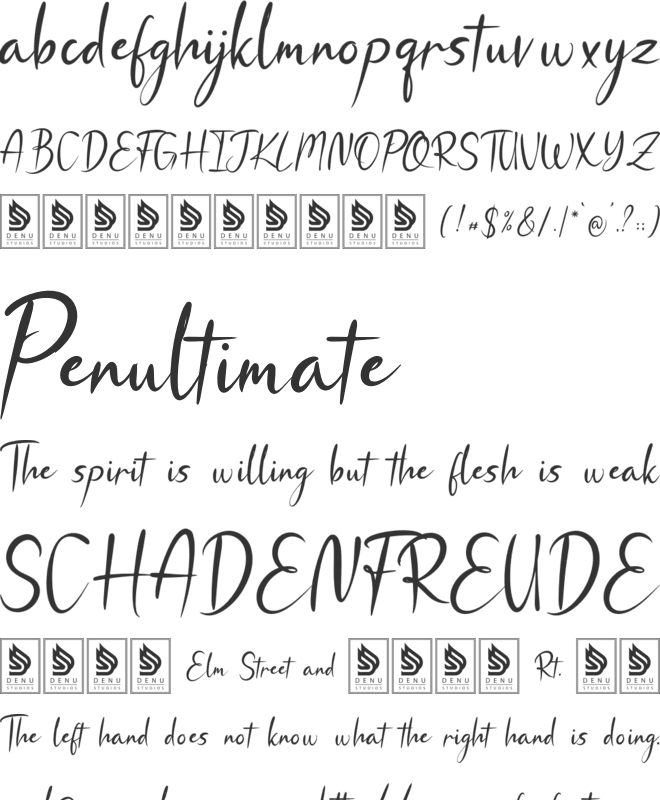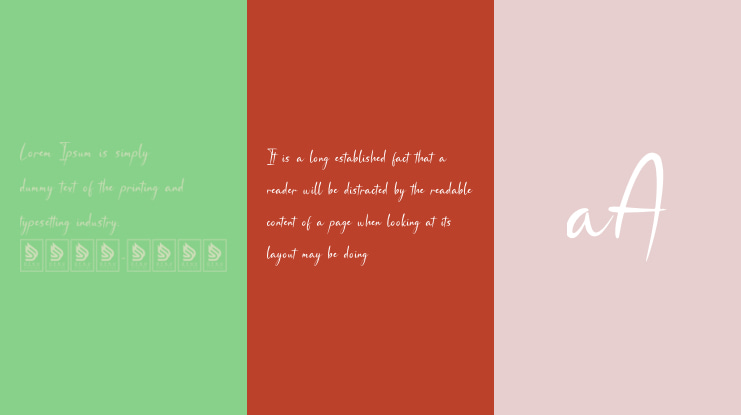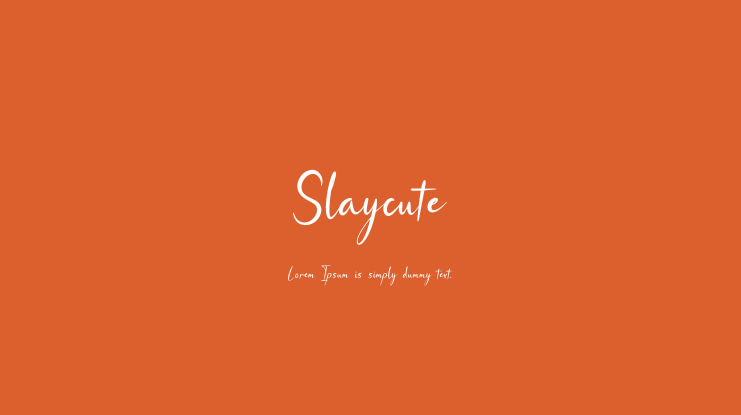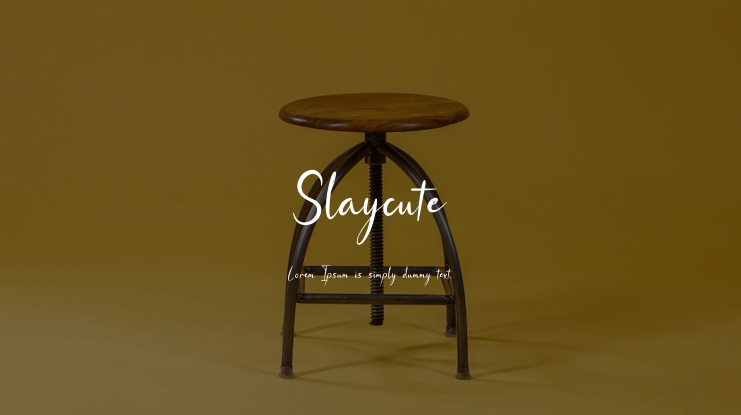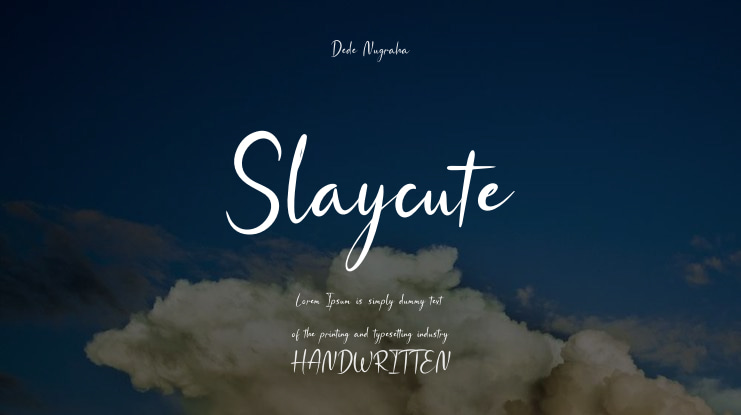
Slaycute Font
Slaycute | Cute Handwritten Font is perfect for various projects like logos, branding, homeware designs, product packaging, mugs, quotes, posters, shopping bags, t-shirts, book covers, name cards, invitation cards, greeting cards, labels, photography, watermarks, special events, and all your other lovely projects that require a Cute Handwritten Font style.